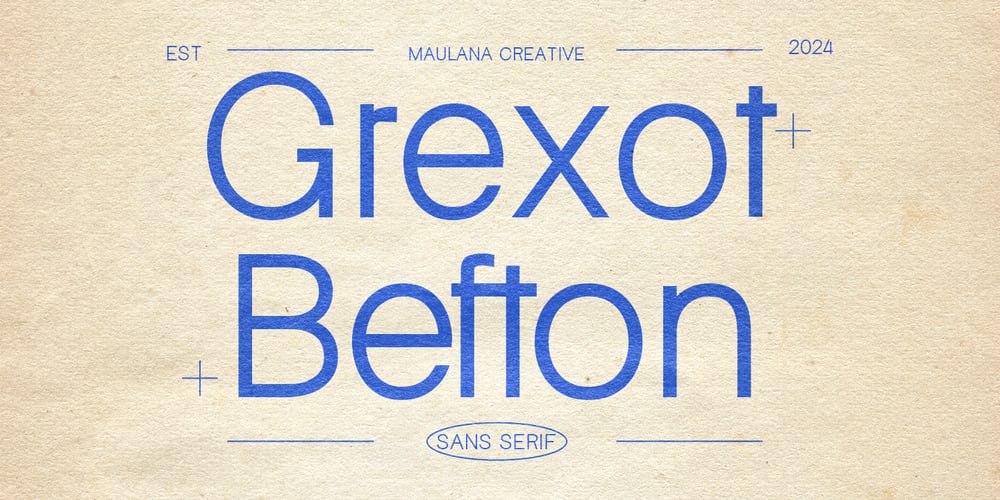
MC Grexot Befton Font Family was designed by Gilang Maulana and published by Maulana Creative. MC Grexot Befton contains 1 styles and family package options. Grexot Befton is a sans serif modern font. With bold tall and sharp stroke, fun character with a bit of ligatures. To give you an extra creative work. Grexot Befton font support multilingual more than 100+ language. This font is good for logo design, Social media, Movie Titles, Books Titles, a short text even a long text letter and good for your secondary text font with sans or serif. Make a stunning work with Grexot Befton font.